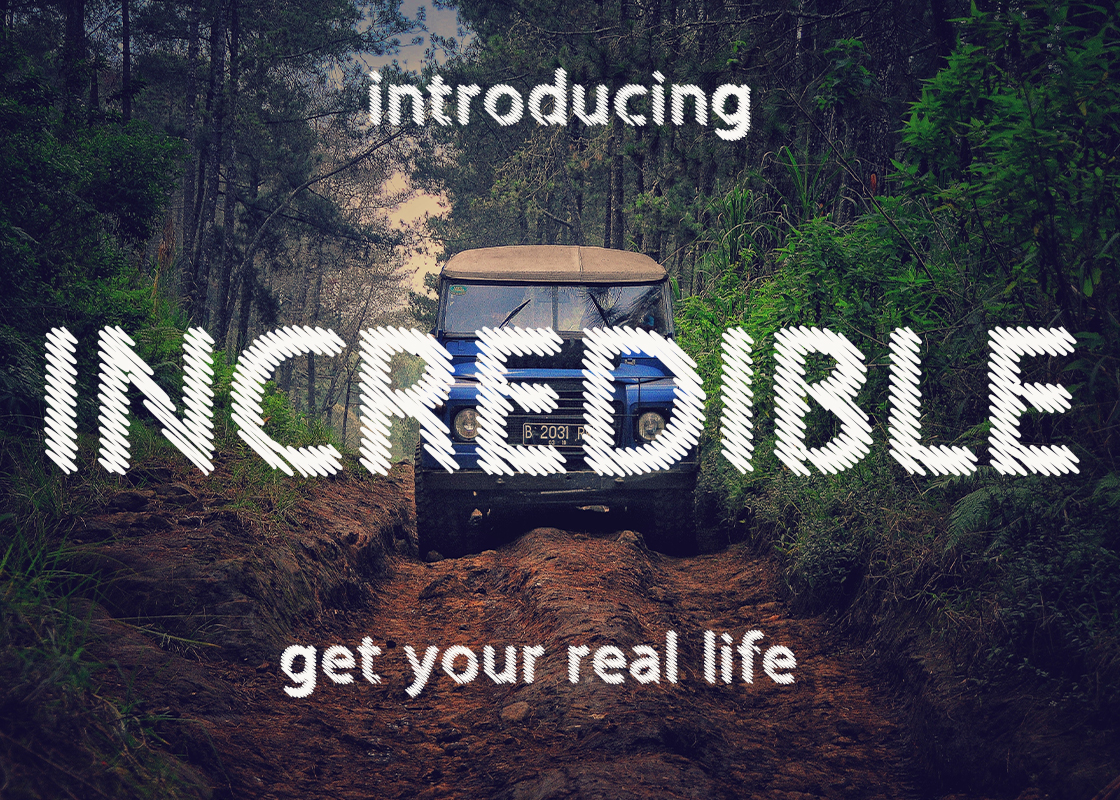
Incredible Font
Designed by Diyastudio
About Incredible
Incredible is a cool, scratched display font. Its casual style makes it fitting to a wide range of creations. No matter the topic, this font will be an incredible asset to your fonts’ library, as it has the potential to elevate any creation.